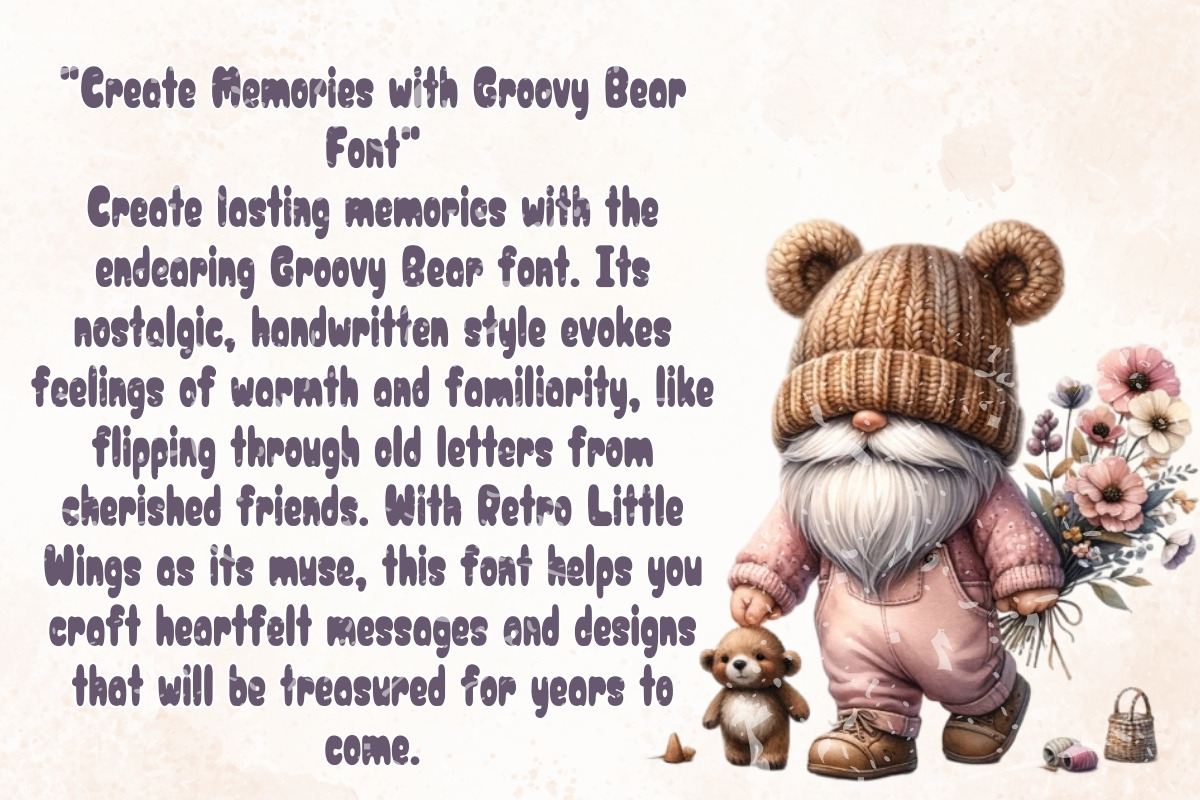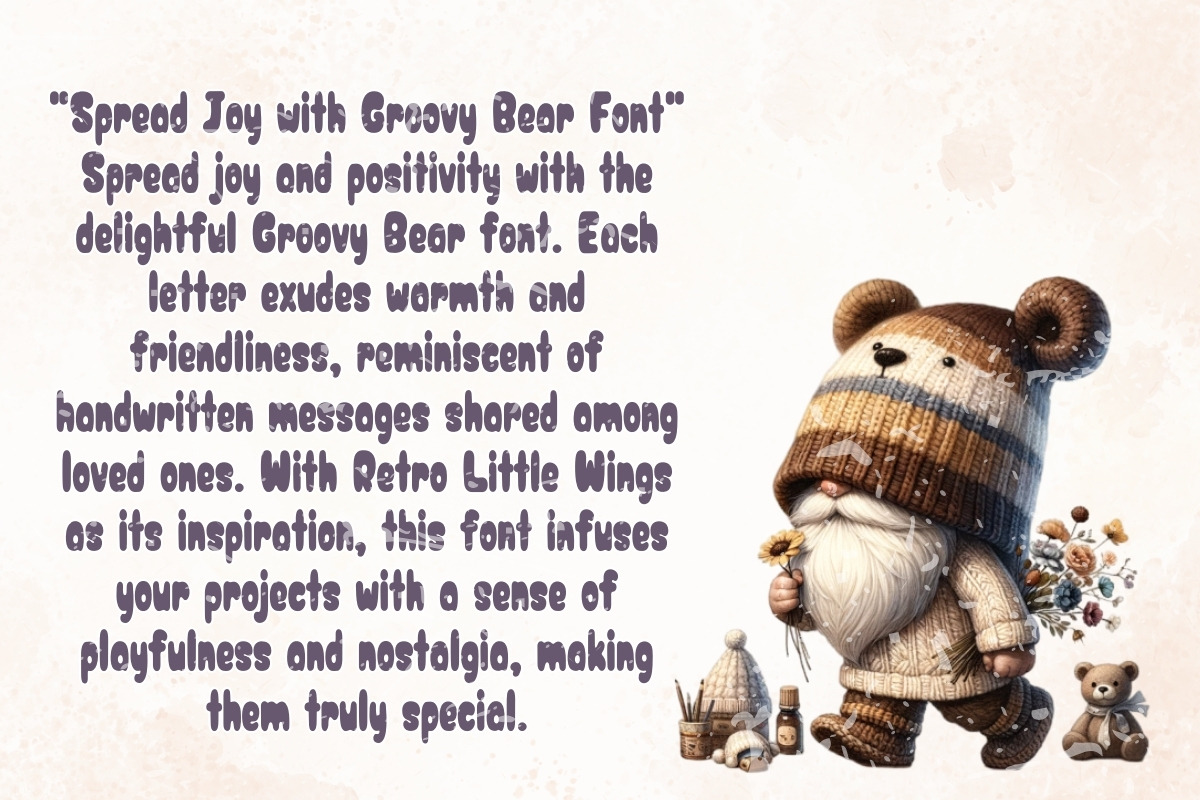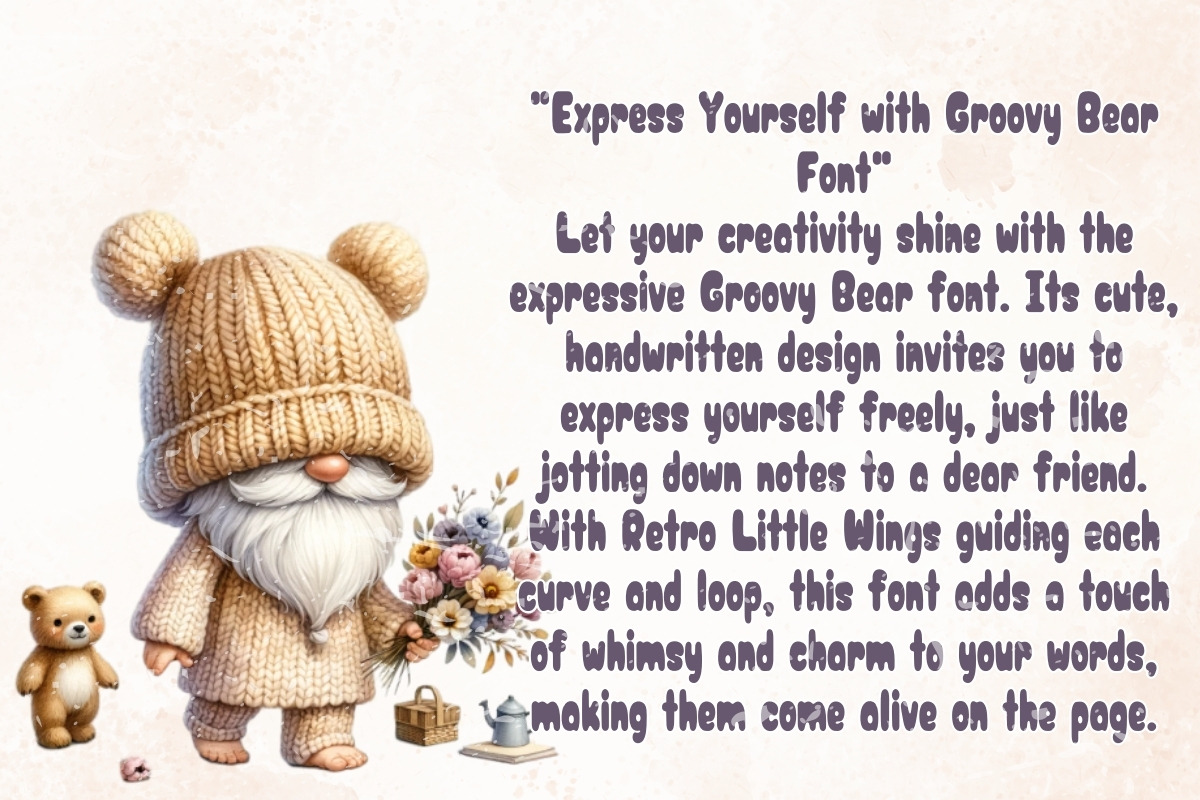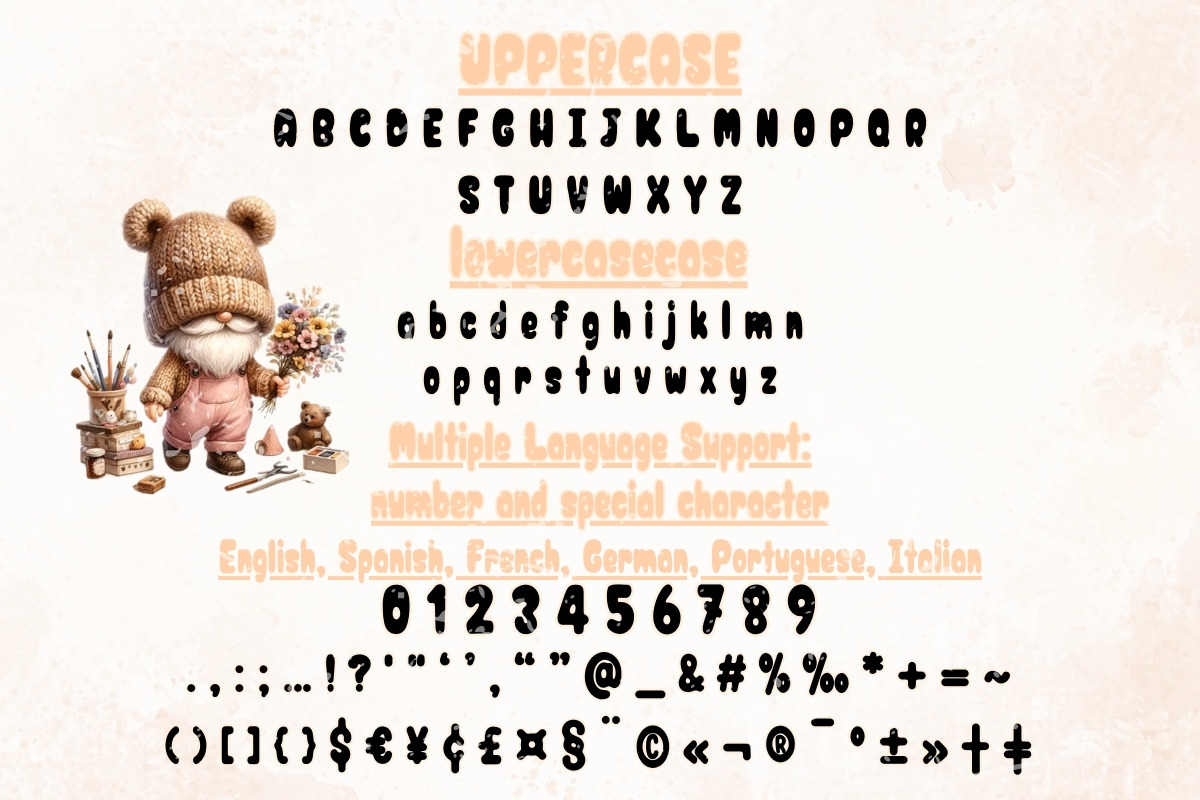
GROOVY BEAR - Handwritten
Introducing Groovy Bear, a font that exudes warmth and playfulness with its beautiful, cute handwritten style. Each letter is crafted with care, capturing the essence of handwritten notes passed between loved ones. Its flowing lines and charming curves bring a sense of joy and whimsy to any design project, making it perfect for adding a touch of personality and friendliness.